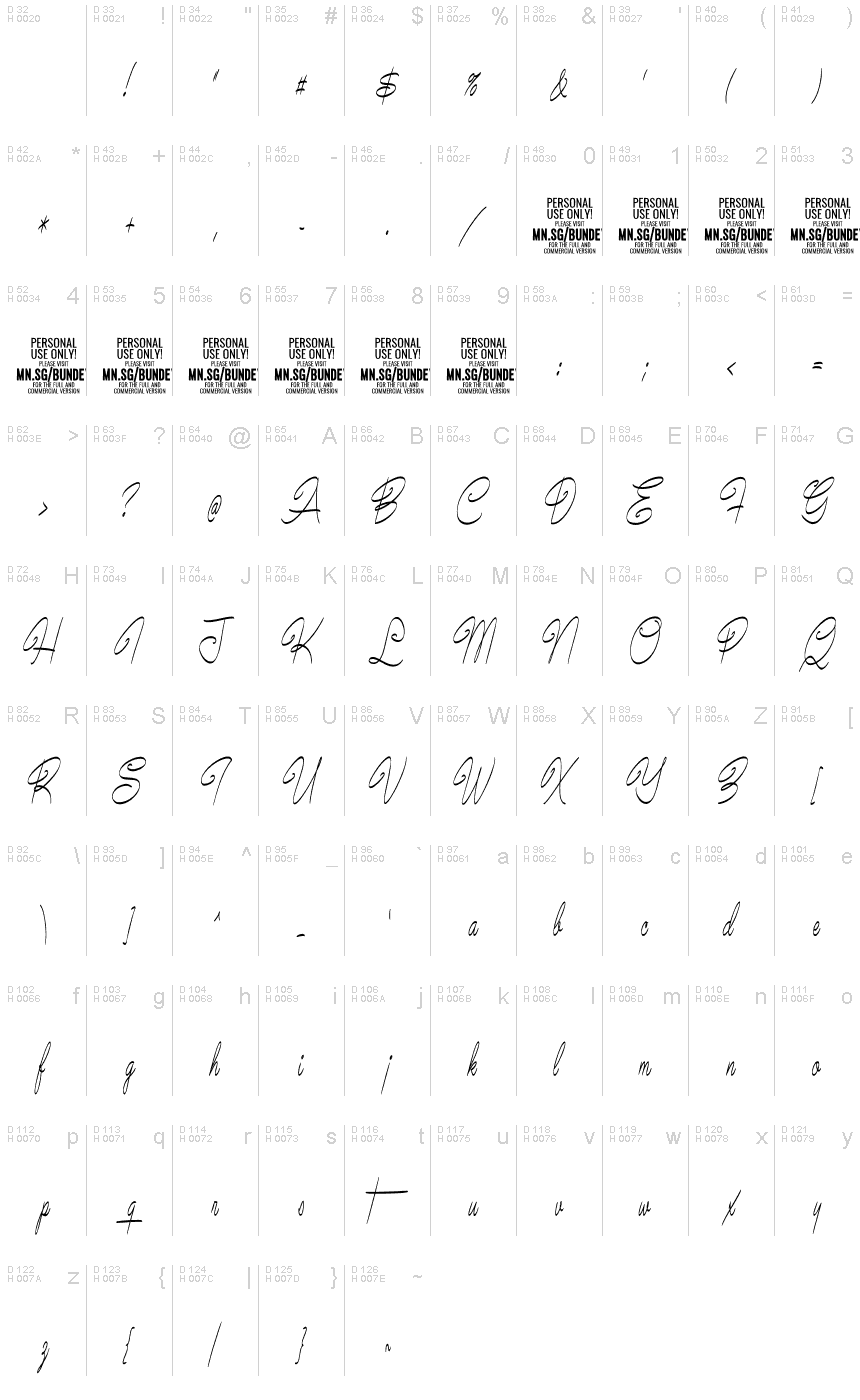
Bundey Script PERSONAL USE Bold Italic
Bundey Script Bold Italic is a stunning handwritten font designed by Mans Greback. With its extra-light weight and condensed width, this font is perfect for projects that require a touch of elegance and sophistication. Its bold italic style adds a unique flair to any project, making it suitable for various designs, such as wedding invitations, branding materials, or even product packaging. Bundey Script Bold Italic captures the essence of true handwriting with its natural curves and strokes while still maintaining legibility and readability. Give your projects that extra edge with Bundey Script Bold Italic!